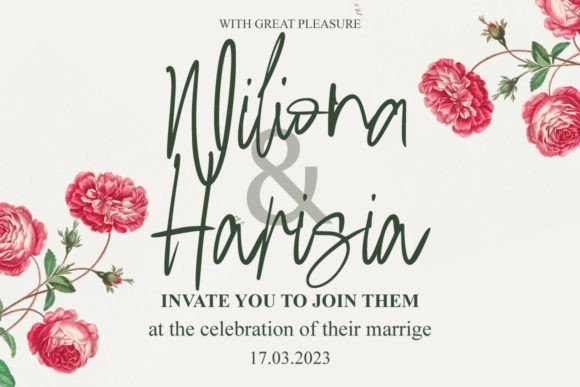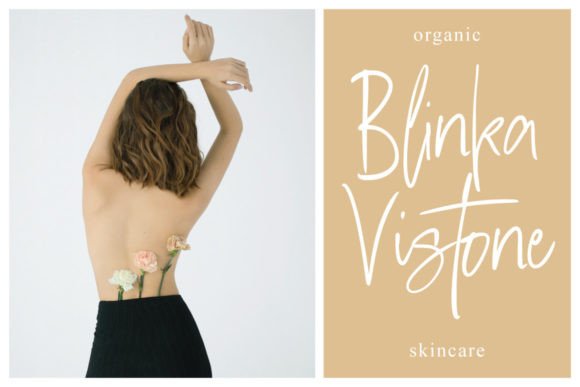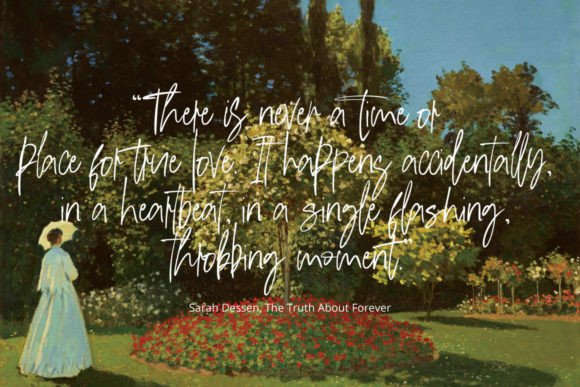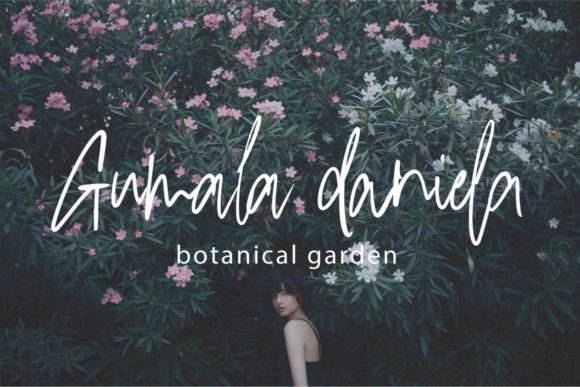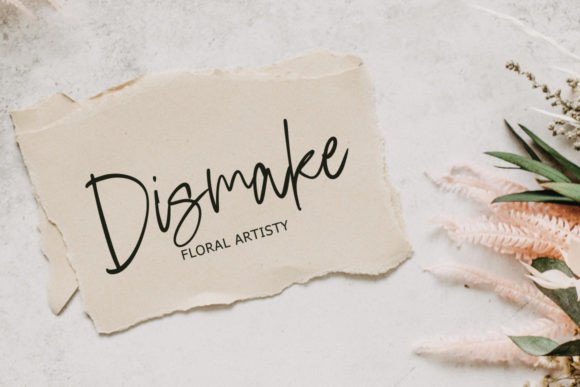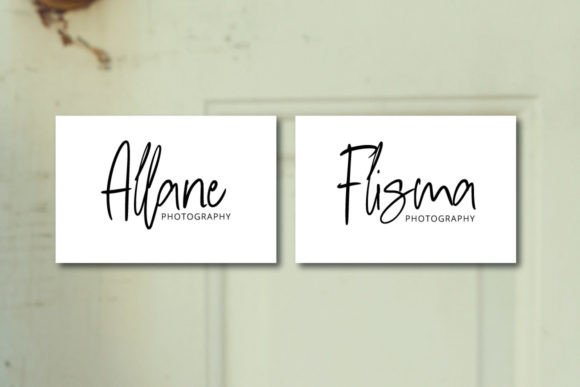
Unleash Your Creativity with the Jesdial Font
Do you remember that moment when you’re brainstorming ideas for a new project, and suddenly, a spark of inspiration hits you? You envision a logo, a brand identity, or a visual concept that perfectly captures the essence of your vision. For many designers, this is the moment when the right font can make all the difference.
Enter the Jesdial Font, a stylish and versatile typeface designed to elevate your creative projects. Its flowing curves and elegant flourishes add a touch of personality and flair, making it an ideal choice for fashion, beauty, and lifestyle projects. With Jesdial Font, you can create eye-catching logos, branding, and visual identities that leave a lasting impression on your audience.
Whether you’re a seasoned designer or just starting out, the Jesdial Font is a valuable addition to your toolkit. Its unique letterforms and elegant style make it a go-to choice for designers looking to add a touch of sophistication and personality to their work.
Jesdial Font Key Features
- Unique Characteristics: Jesdial Font features a unique blend of modern and vintage elements, with distinctive letterforms and ornaments that add a touch of elegance and sophistication to any design.
Jesdial Font Review
I recently had the chance to work with the Jesdial font, and I wanted to share my honest thoughts on this versatile typeface.
- The Jesdial font offers a modern and sleek aesthetic, perfect for contemporary designs.
- The font family includes a range of weights, from light to bold, giving designers plenty of options for varying text sizes and styles.
- The font’s rounded edges and subtle curves make it highly readable, even at smaller font sizes.
- Jesdial font supports a wide range of languages, making it a great choice for global projects.
- The font may not be the best choice for projects requiring a classic or traditional feel, as its modern aesthetic may be too bold.
- The font’s rounded edges may not be ideal for projects requiring sharp, angular typography.
- Some users may find the font’s width inconsistent across different weights, which can affect text alignment.
Overall, the Jesdial font is a solid choice for designers seeking a modern and versatile typeface. While it may have some limitations, its strengths make it a valuable addition to any design toolkit.
To get the most out of the Jesdial font, try combining it with other fonts and design elements. Experiment with different font sizes, colors, and styles to create unique and eye-catching designs.
The Jesdial font is ideal for:
– Creative projects and designs
– Branding and marketing materials
– Editorial and publishing projects
– Digital and print media
Alternatives to Jesdial Font for Designers
Playfair Display is a high-end, elegant serif font ideal for luxury brands, high-end fashion, and fine dining. It features intricate details and ornate flourishes, making it perfect for creating a sophisticated and luxurious atmosphere.
Compared to Jesdial Font, Playfair Display is more formal and luxurious, while Jesdial Font has a more modern and minimalist feel. Playfair Display is better suited for creating a sense of opulence and grandeur, whereas Jesdial Font is more versatile and can be used in a variety of contexts.